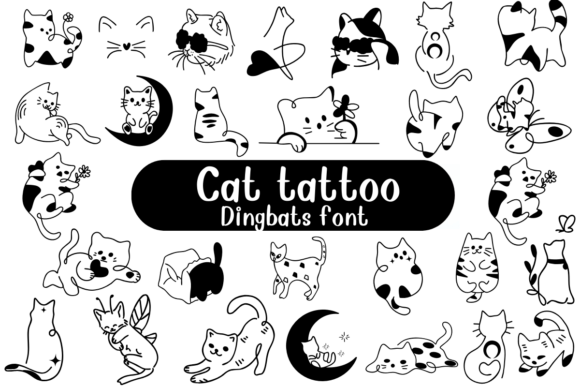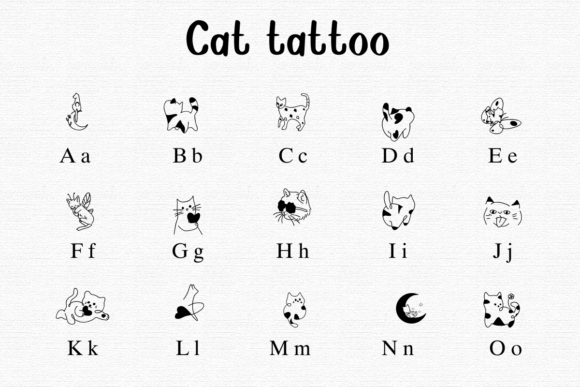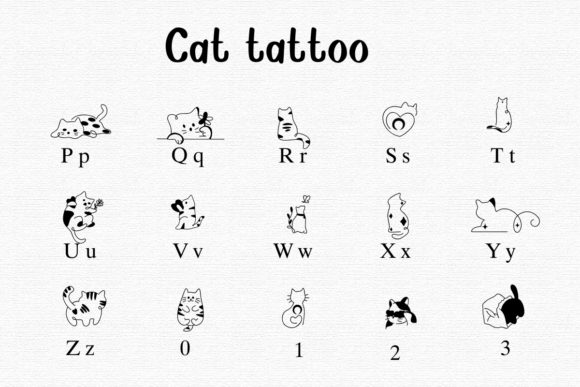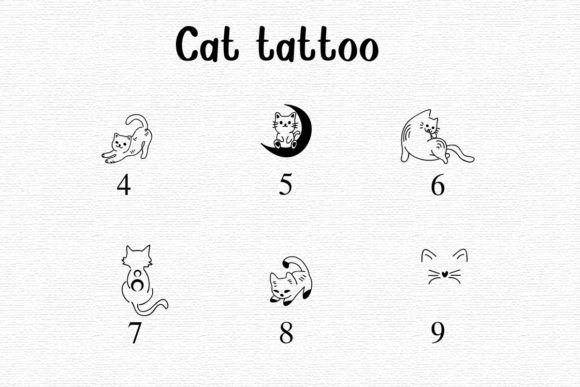
Cat Tattoo Font
About the Cat Tattoo Font
We are excited to introduce Cat Tattoo Font, a must-have typeface for any serious designer. Cat tattoo is a dingbats font with a sketched style. This font can enhance your creative projects such as wedding invitations, DIY, crafts, decorations, logos, and many other creative ideas.
Cat Tattoo Font Usage Examples
Cat Tattoo Font Example